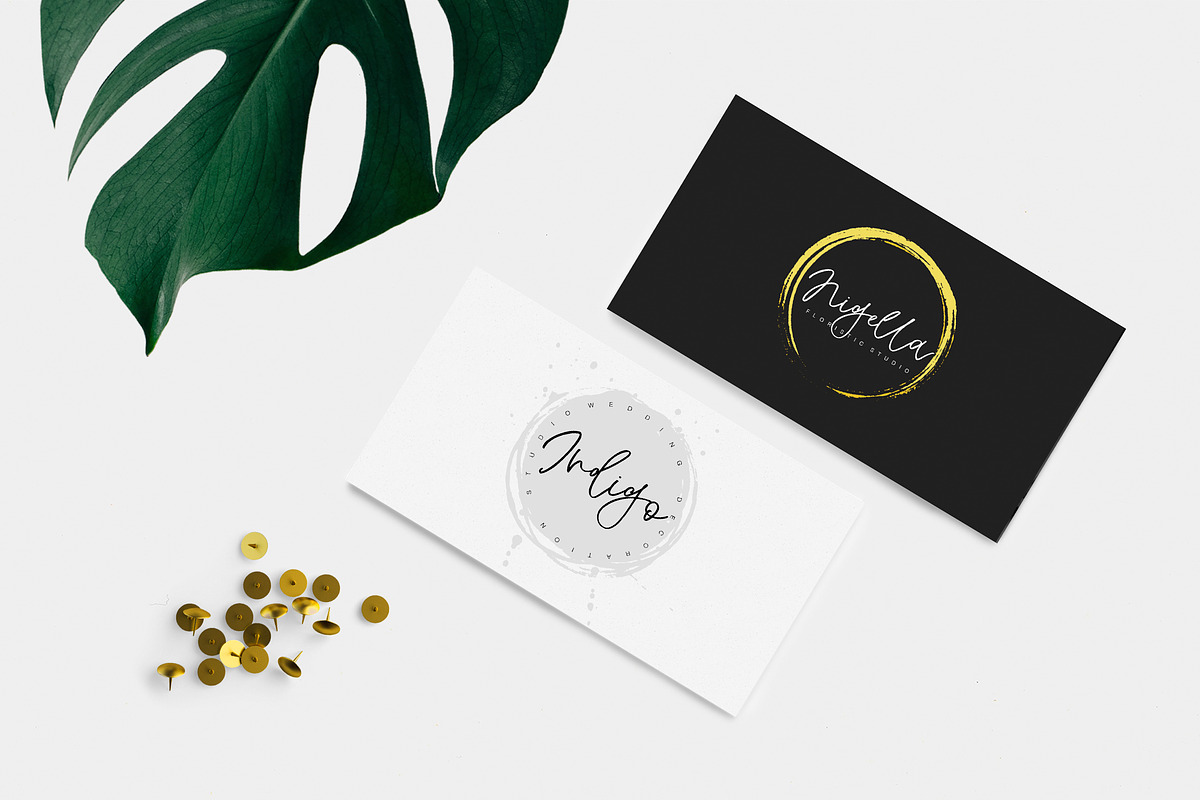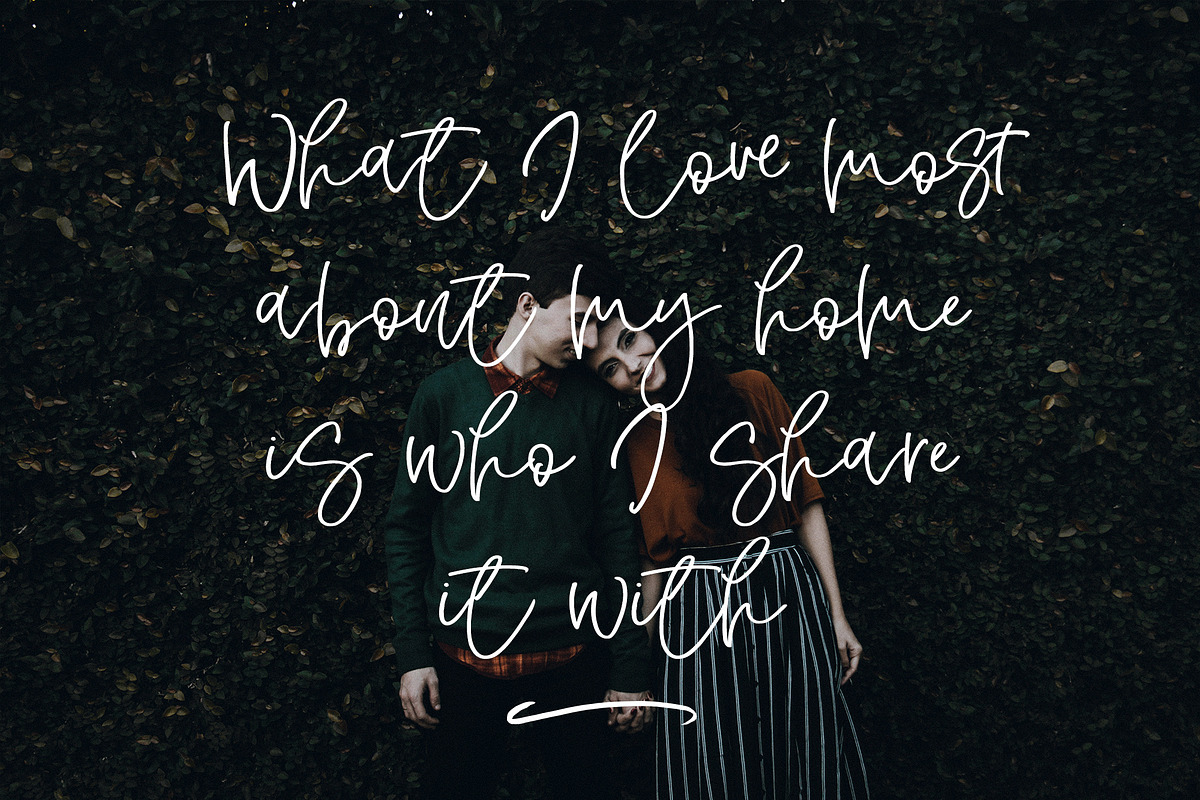
Wisteria Script
Introducing you my NEW Wisteria Font!
It's hand-drawn signature font with dancing baseline and elegant lines. This fresh font will look awesome on your branding materials, wedding invitations, headings, greeting cards and any other amazing projects you are working on.
WIsteria font includes Upper and Lowercase Basic Characters, Standart and Discretionary Ligatures, Numbers and Punctuation. Wisteria is also available for Western and Central European Languages.